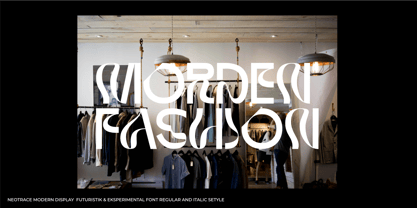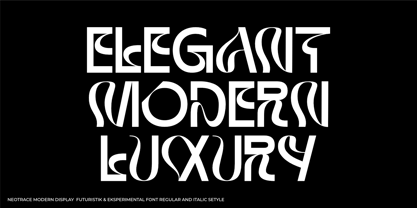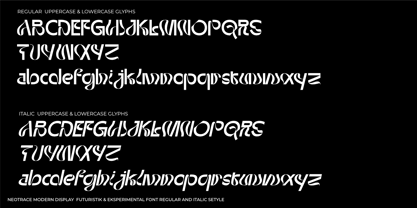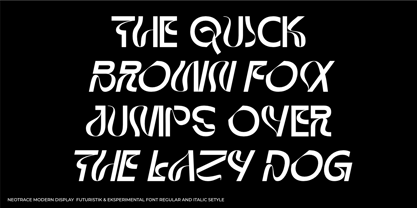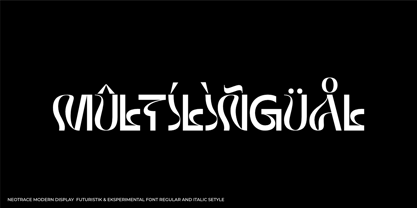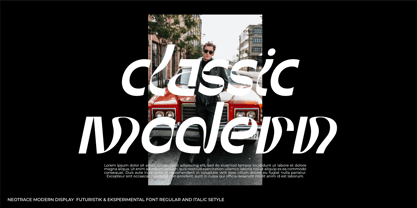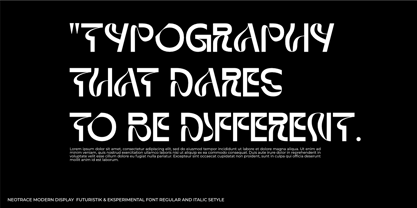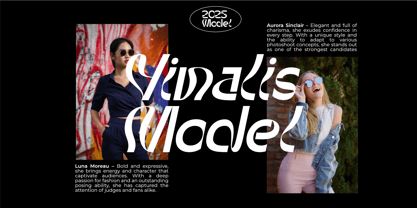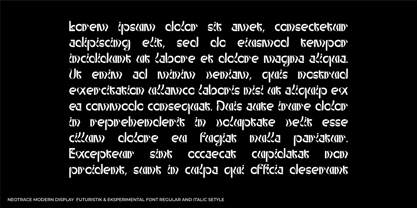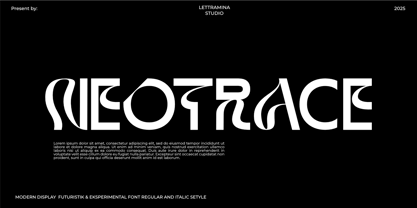
Neotrace
by Lettramina Studio
The Neotrace Font Family was designed by Mukshal Mina and published by Lettramina Studio. Neotrace contains 2 styles and family package options.
Neotrace is a modern experimental display font that bends the rules of legibility to explore a new typographic dimension. Designed with sharp cuts, fragmented forms, and abstract silhouettes, Neotrace challenges the reader’s perception and invites deeper visual interaction. It's the perfect typeface for futuristic branding, experimental posters, digital art, and projects that dare to stand out. Not meant to be read passively — Neotrace must be decoded, interpreted, and felt.
Designers: Mukshal Mina
Publisher: Lettramina Studio
Foundry: Lettramina Studio